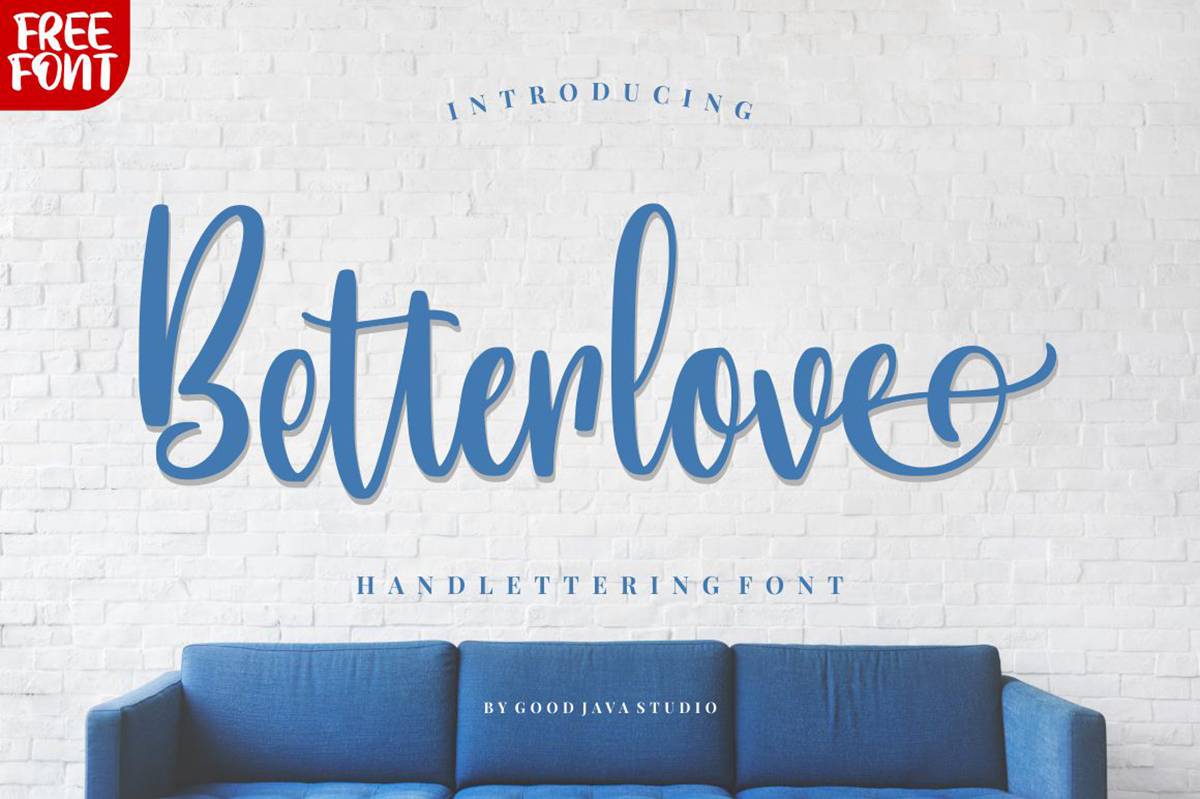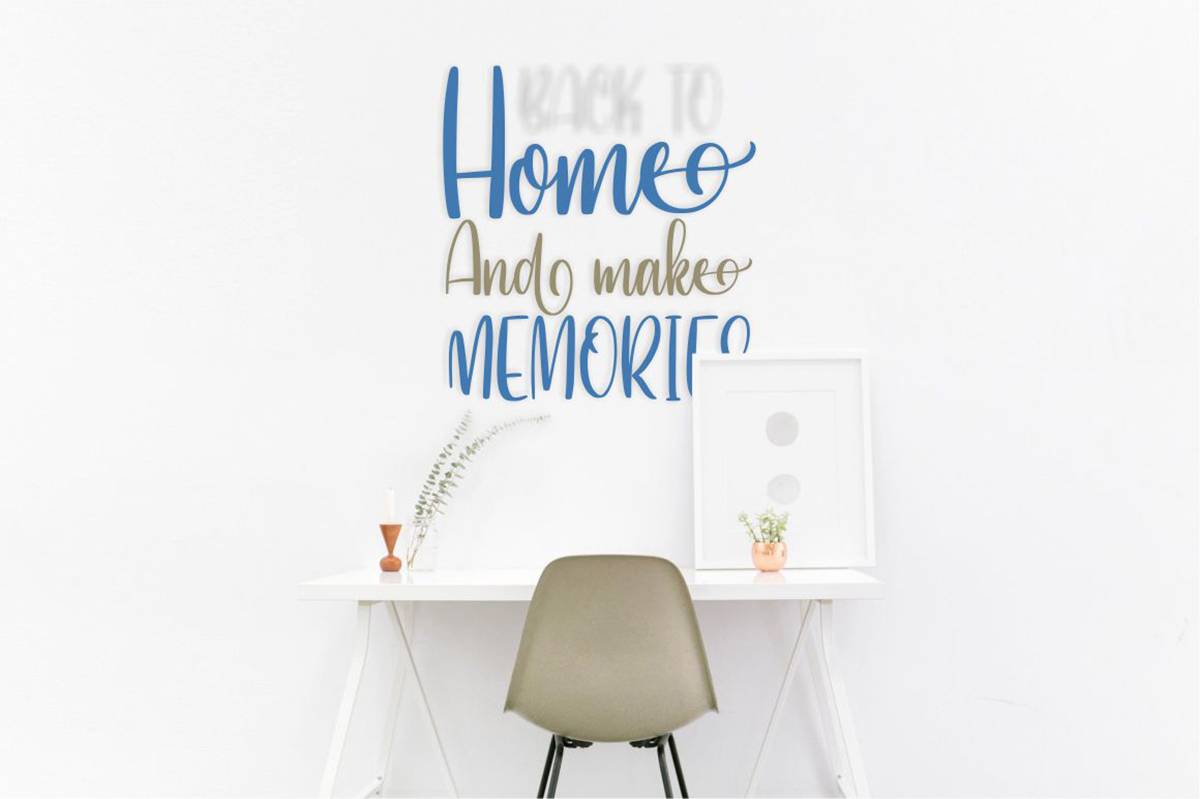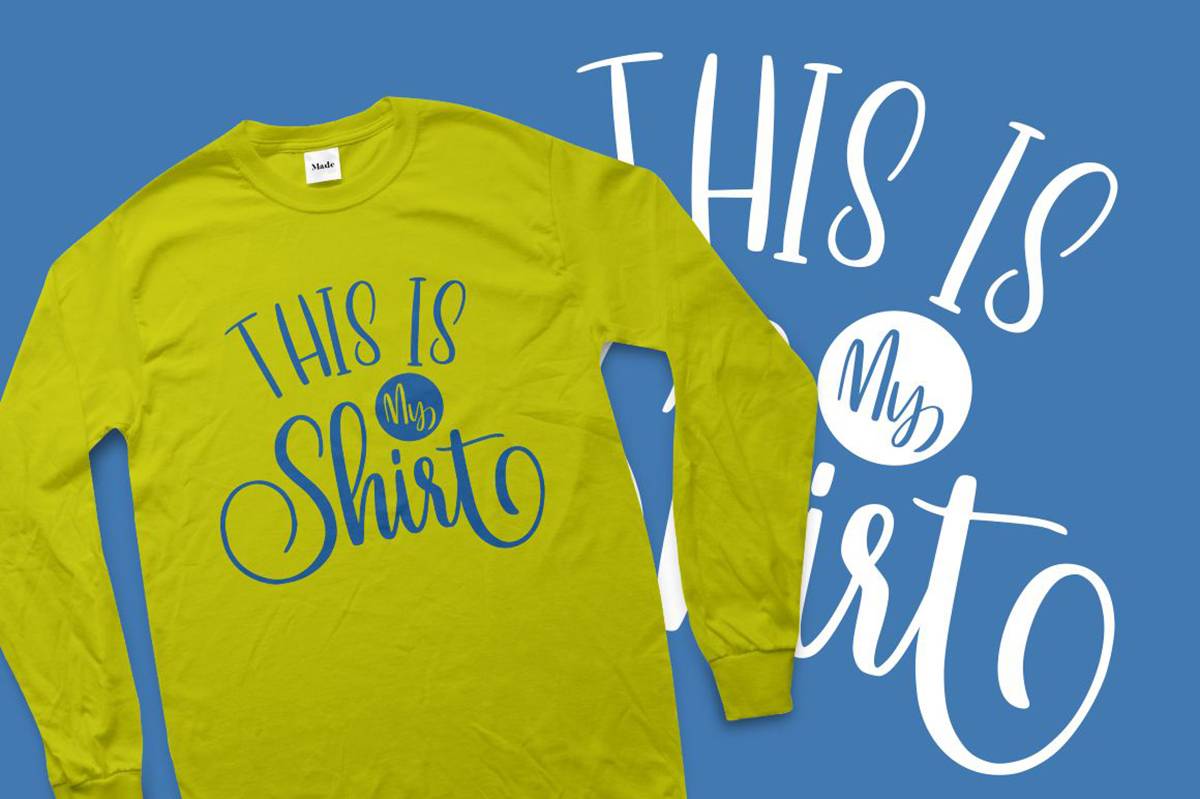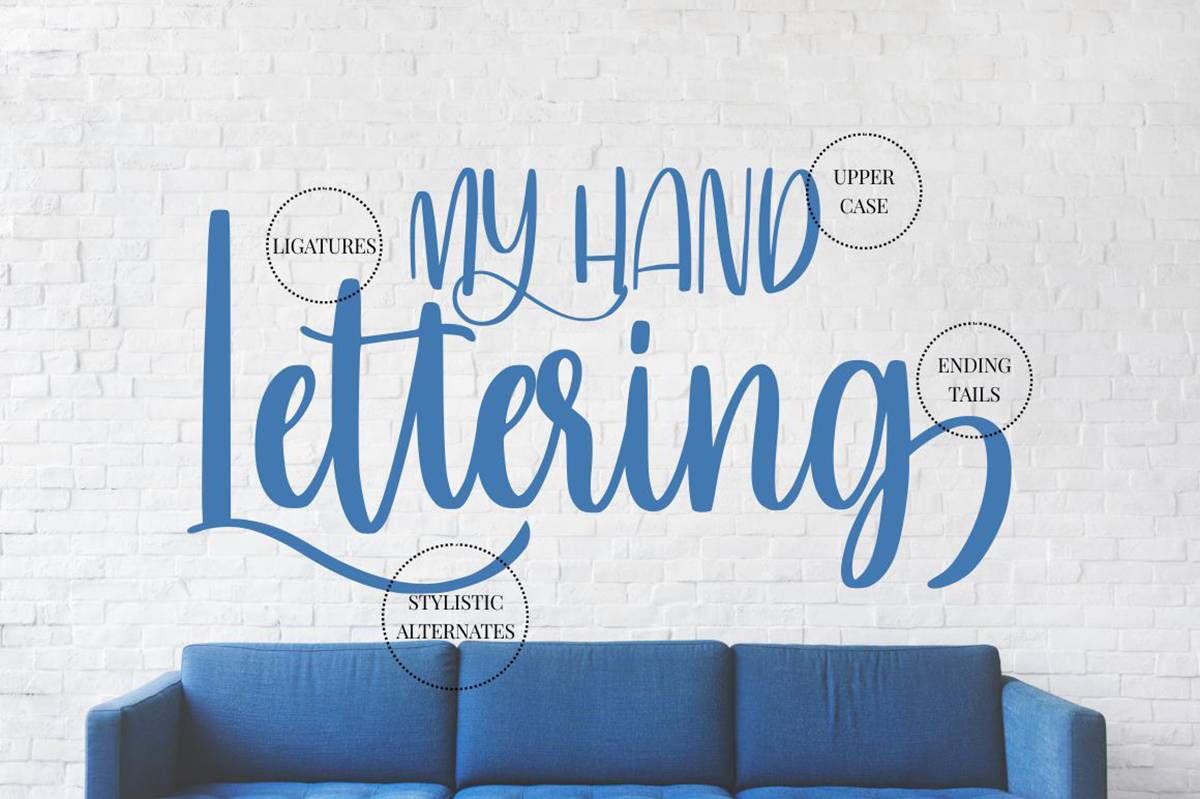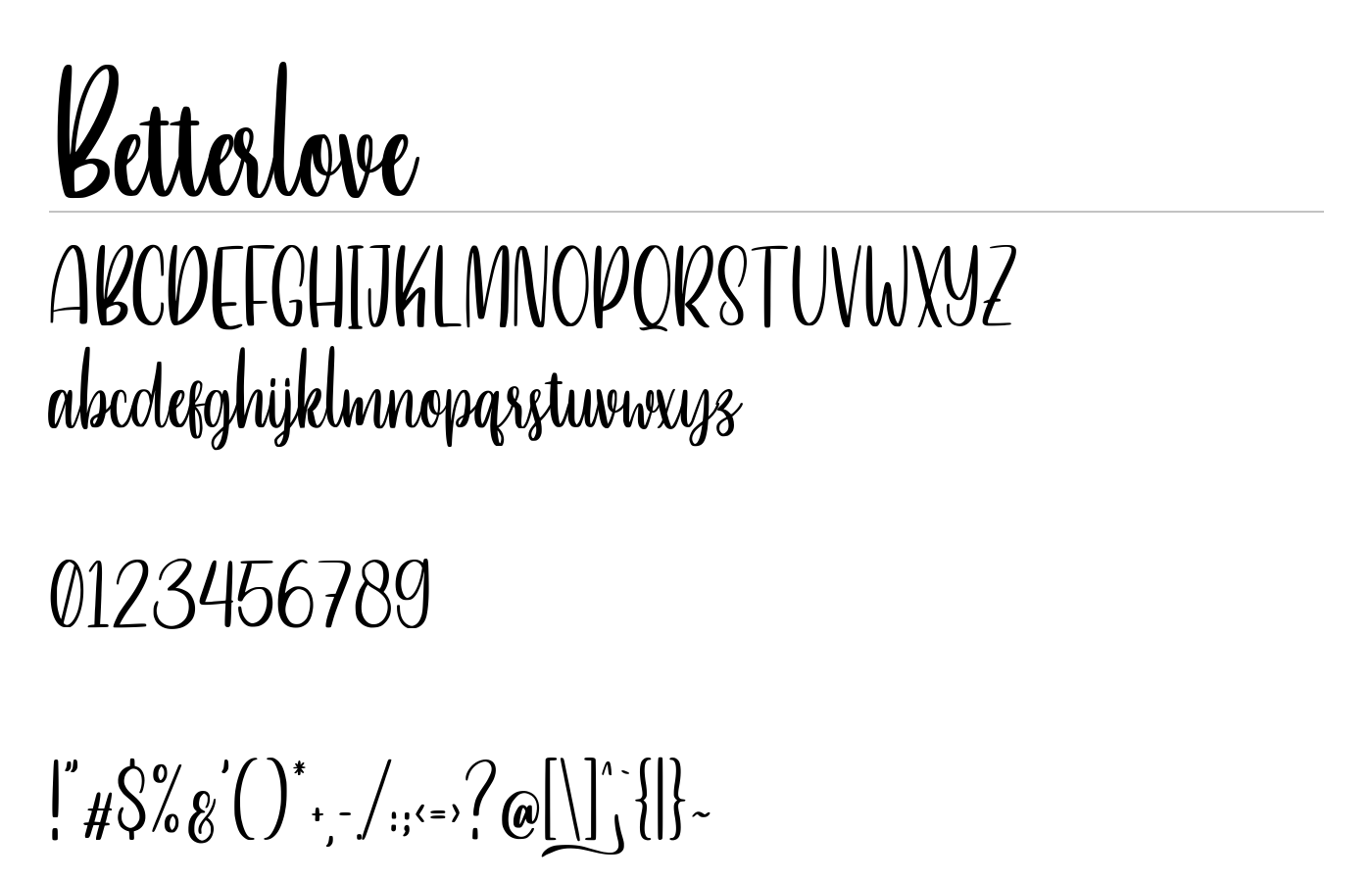
Betterlove is a playful and elegant handwritten script font with a warm, casual feel. It features tall, narrow letterforms with a lively, flowing style, making it perfect for adding a personal, friendly touch to invitations, branding, and creative projects. Its mix of smooth curves and distinct character shapes helps it stand out beautifully in logos, packaging, and social media designs.
Betterlove Font
About Betterlove Font
| Font family | Betterlove Font |
| Designer | Good Java Studio |